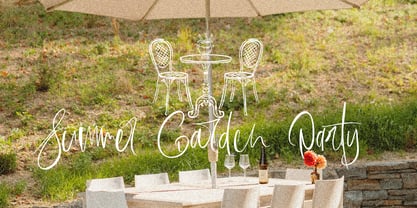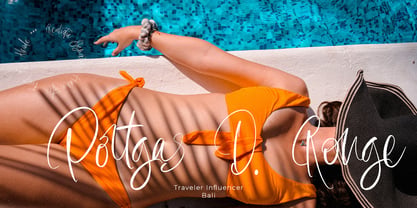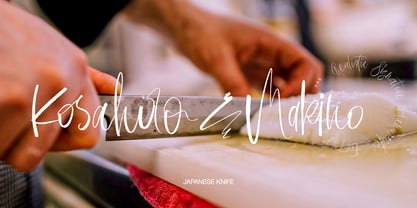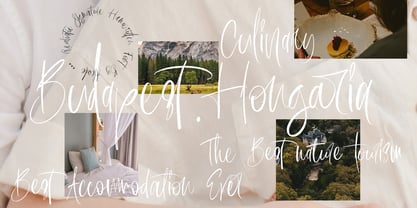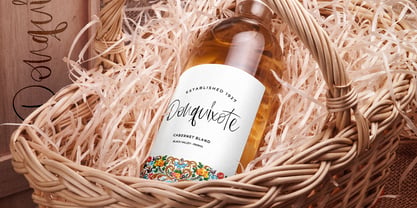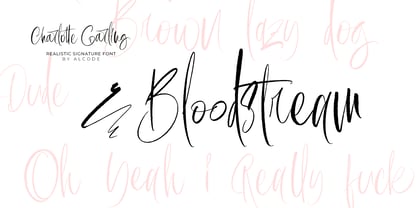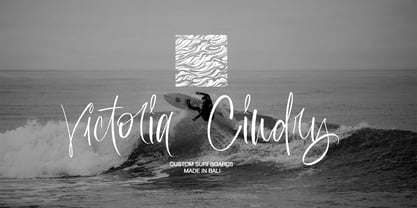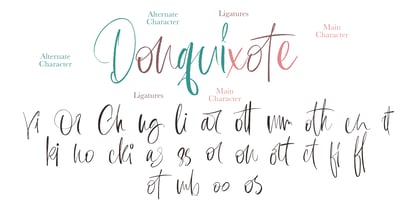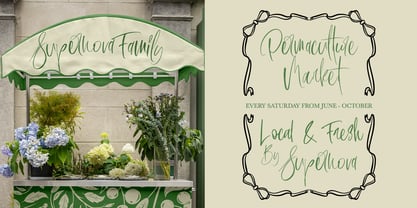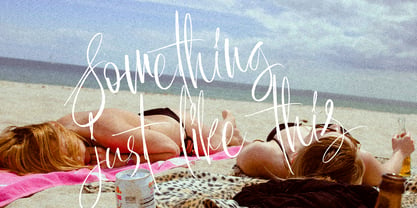
Charlotte Garling
von Alcode
Die Schriftfamilie Charlotte Garling wurde von Sukjana Almunandar entworfen und von Alcode veröffentlicht. Charlotte Garling enthält 1 Stile. Mehr über diese Familie
Charlotte Garling is a organic handwritted font inspired by natural brush typography. Written in rapid motion using a slightly dry brush pen. This will give you a fresh and elegant design. Charlotte Garling comes with uppercase and lowercase sets, numbers, alternative styles for some lowercase characters are also available which make your text and designs more attractive.
Designer: Sukjana Almunandar
Foundry: Alcode